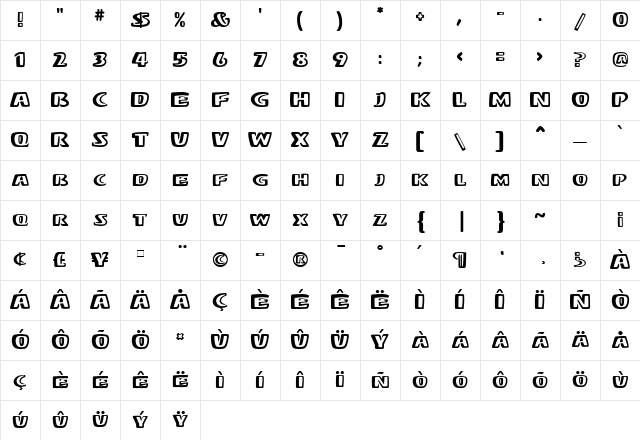
Stereo MF Regular
Design Context for Stereo MF
Stereo MF is a composed and adaptable typeface that performs quietly and consistently across a wide range of design contexts.